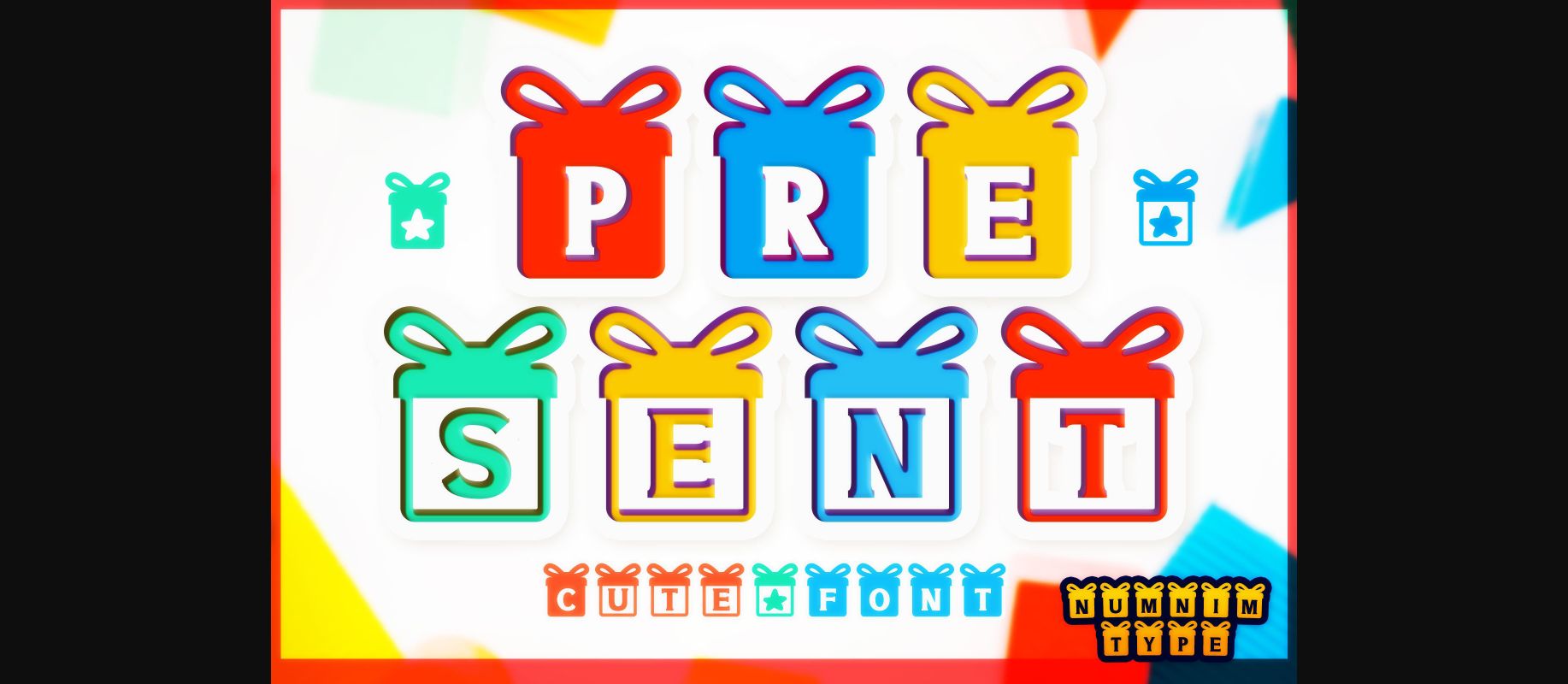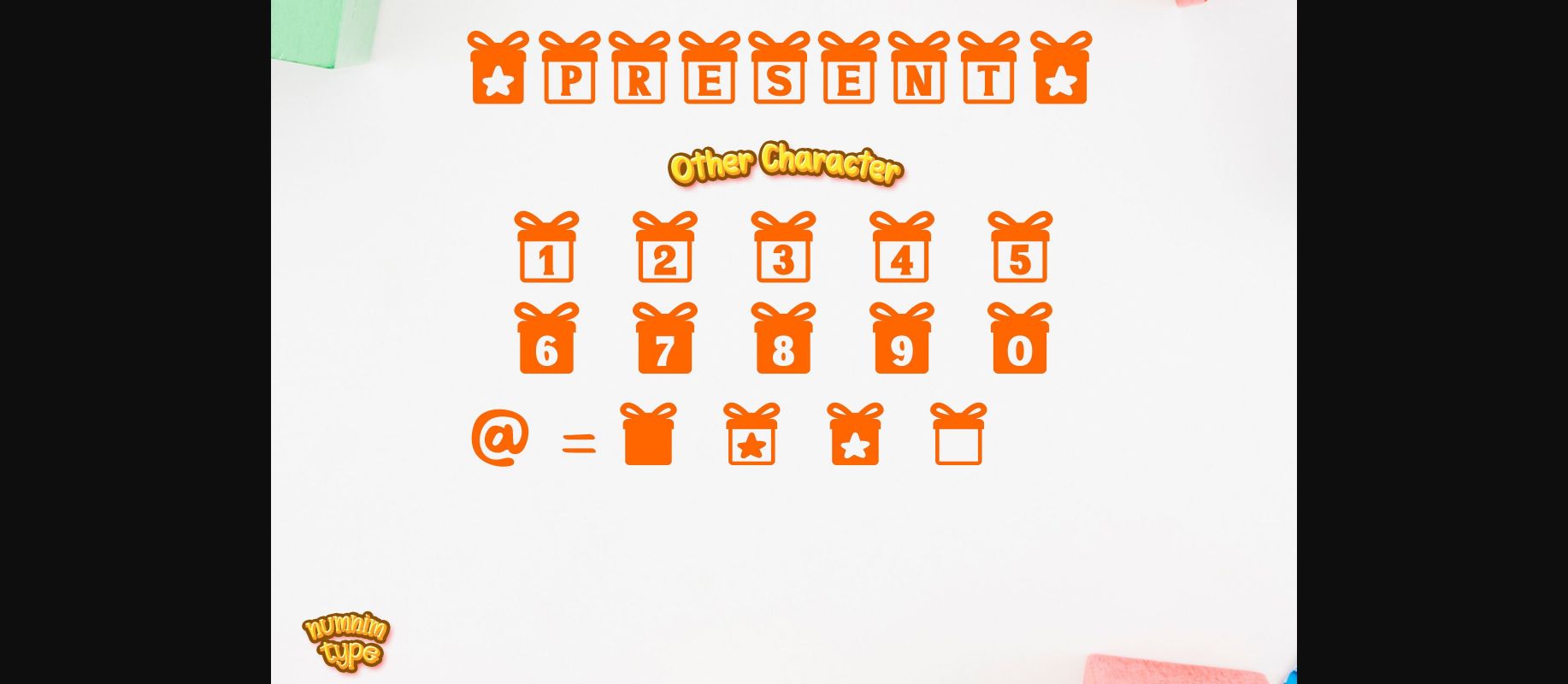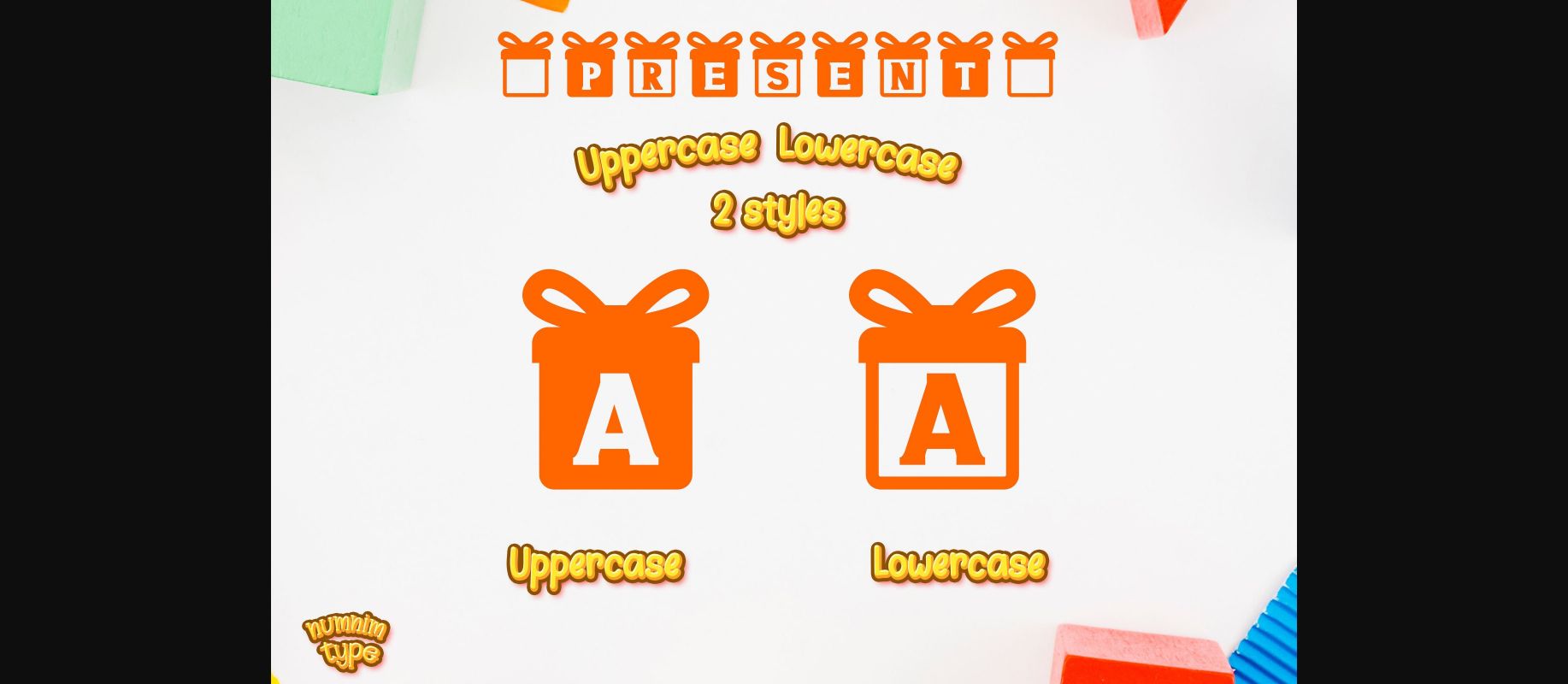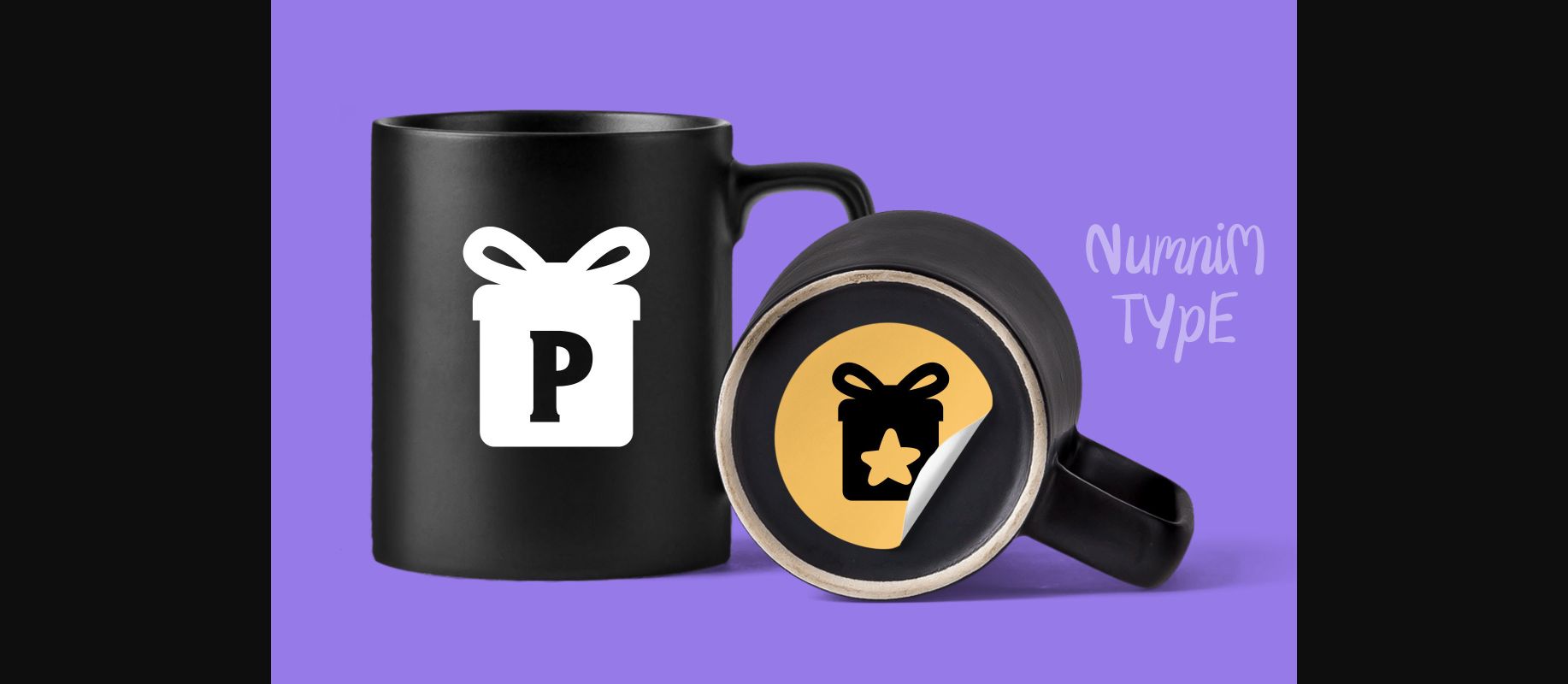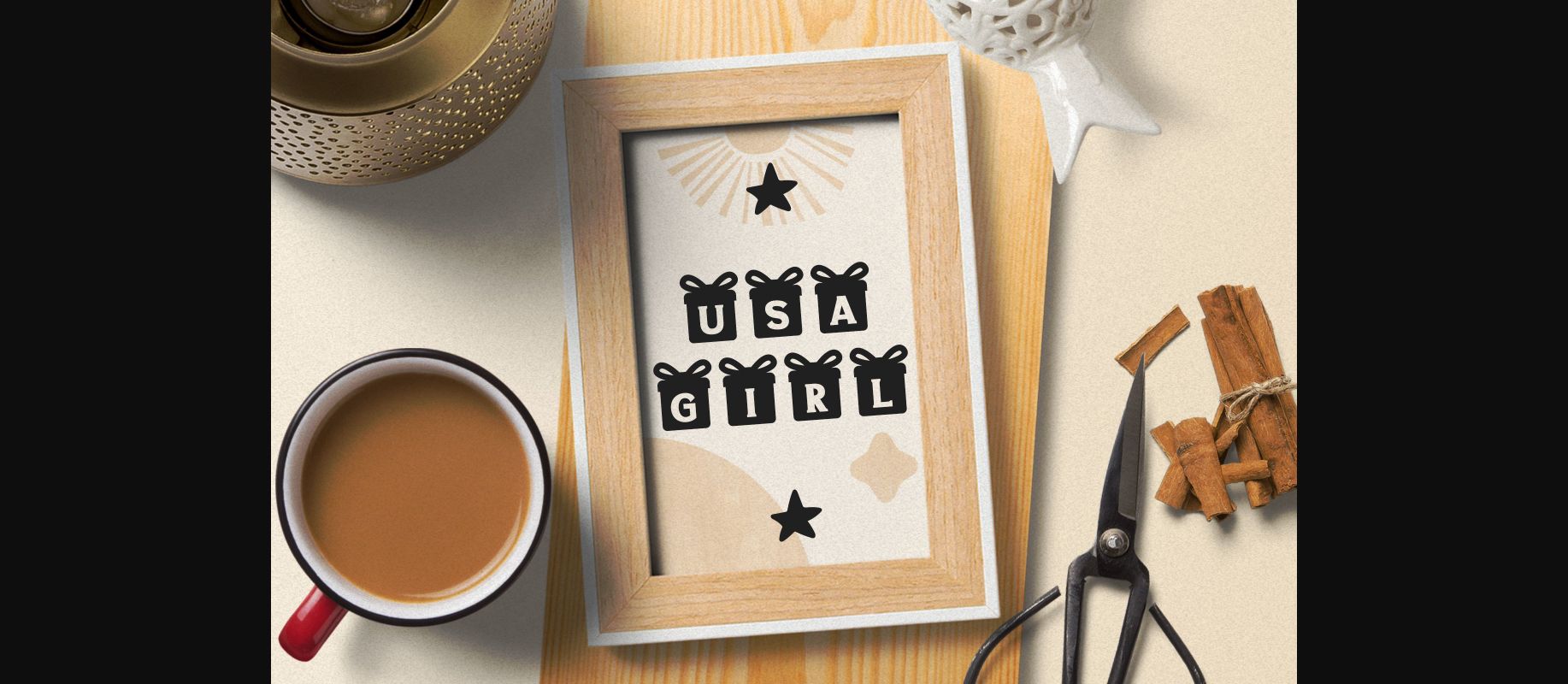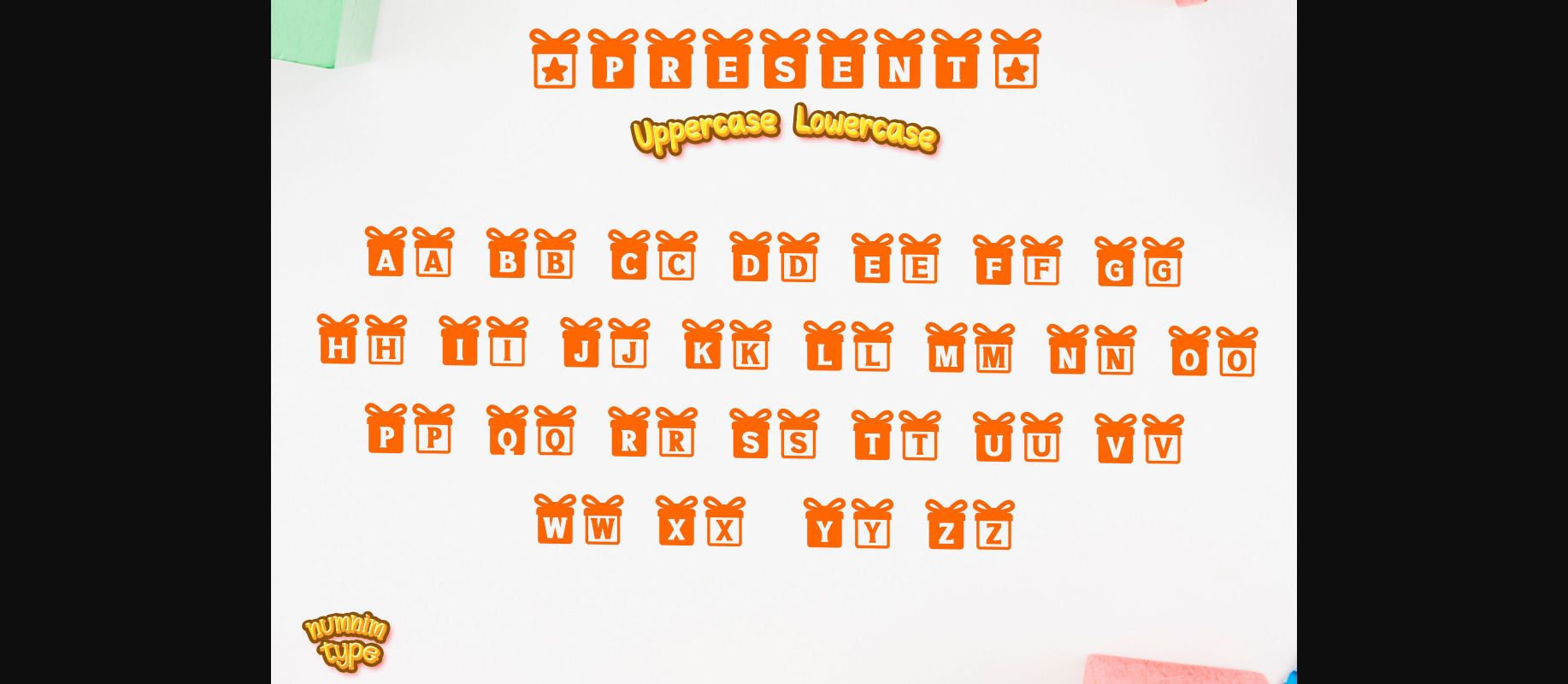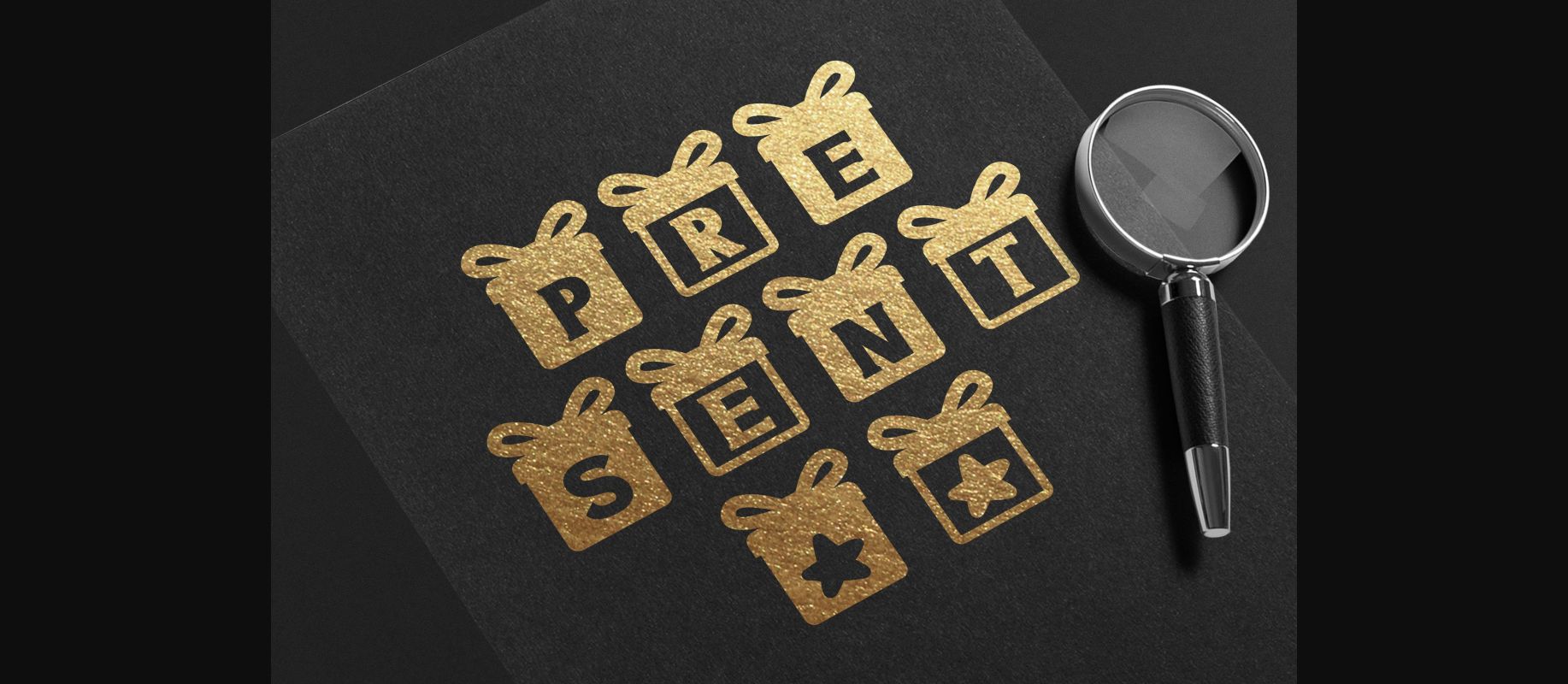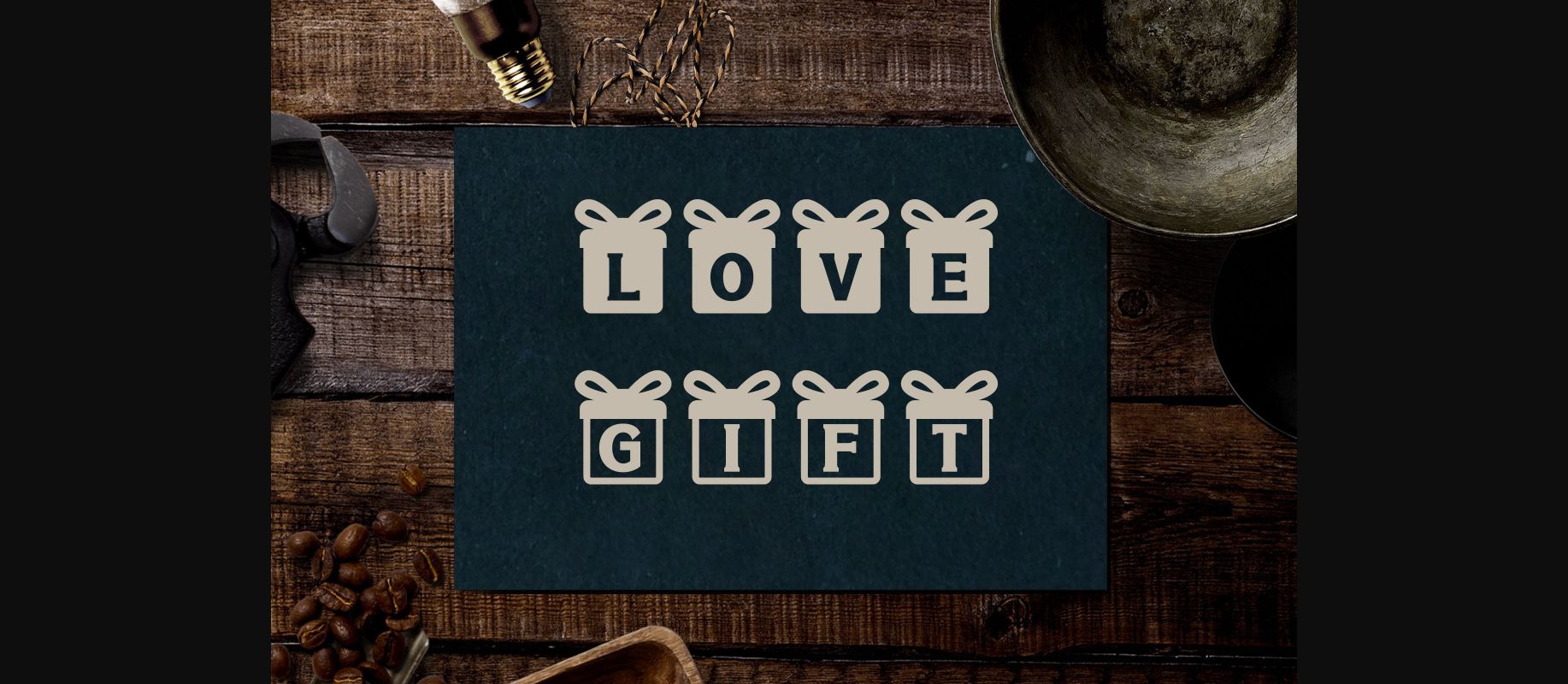
Present Font
About Present Font
Present is a cool and uniquely crafted decorative font. Its fun and playful characters make it the perfect font for stickers, mugs, t-shirts, ornaments, Christmas day event cards, event invitations, and many more! This font is PUA encoded which means you can access all glyphs and swashes with ease!